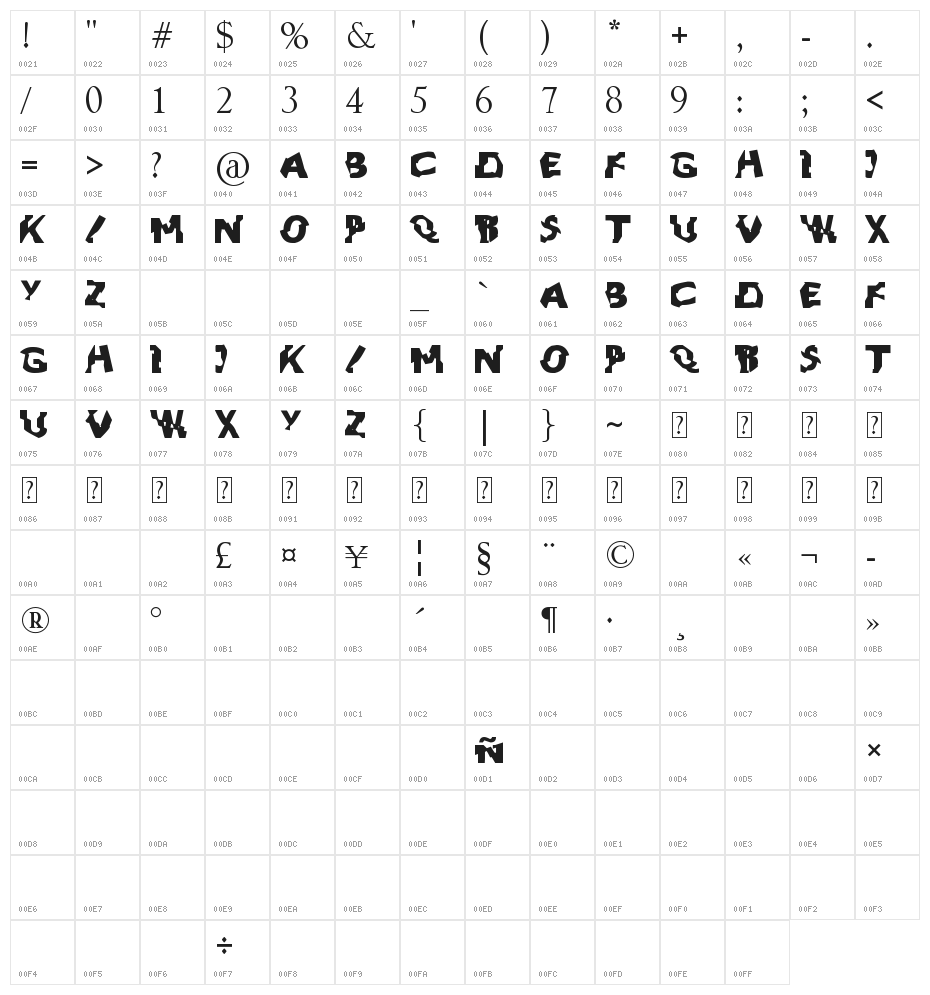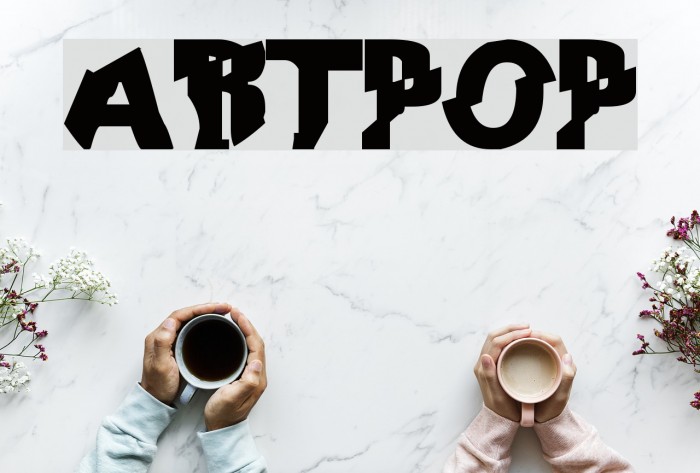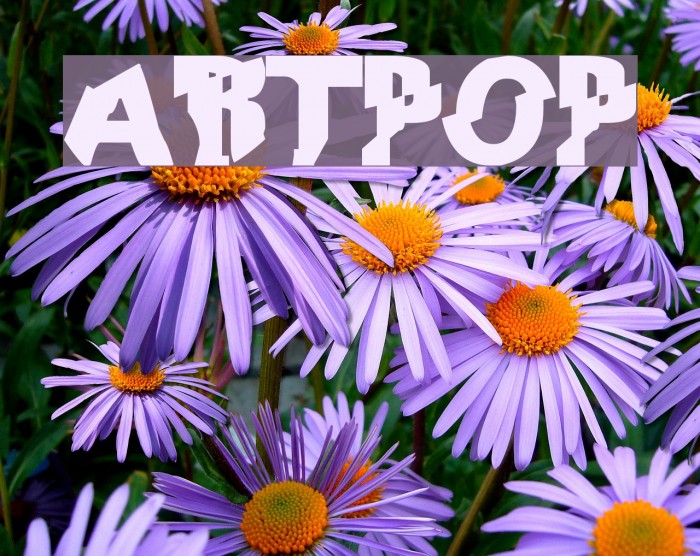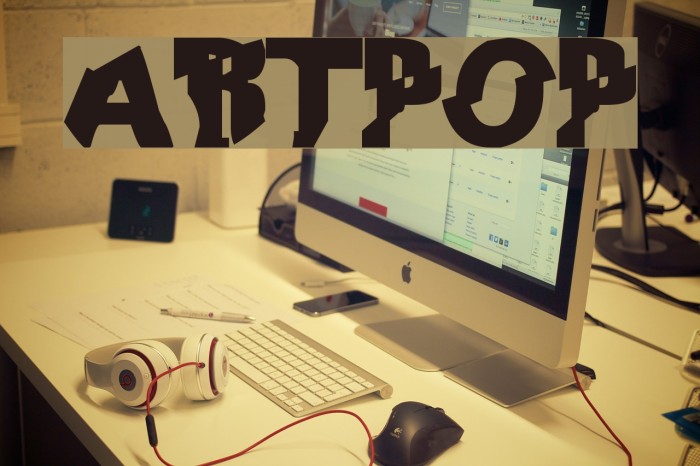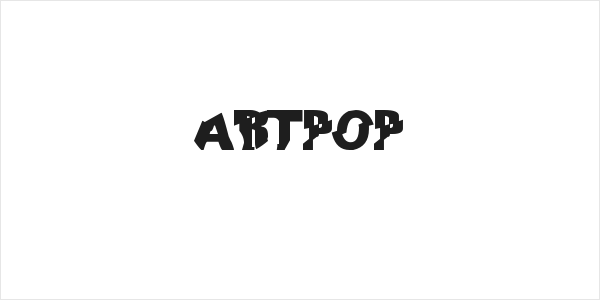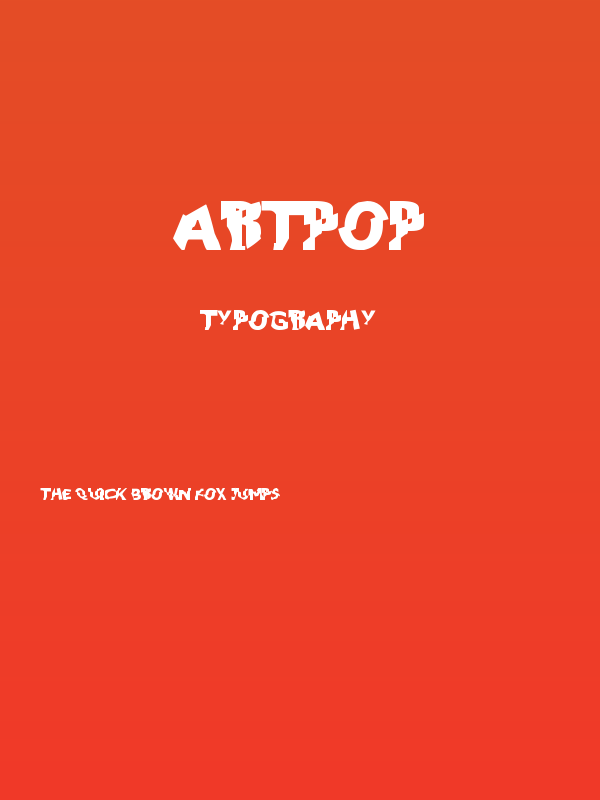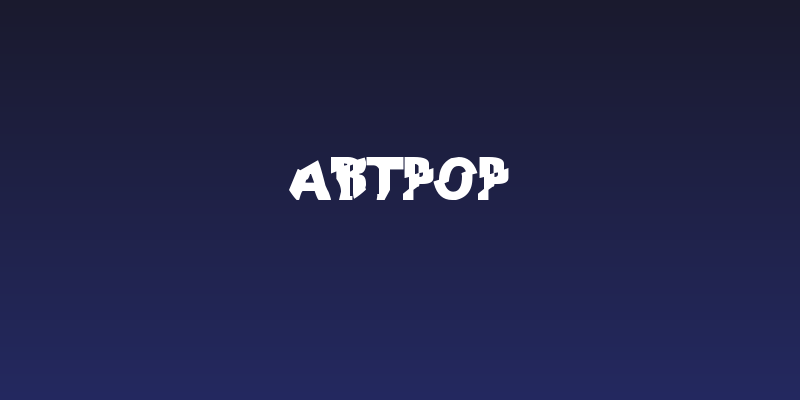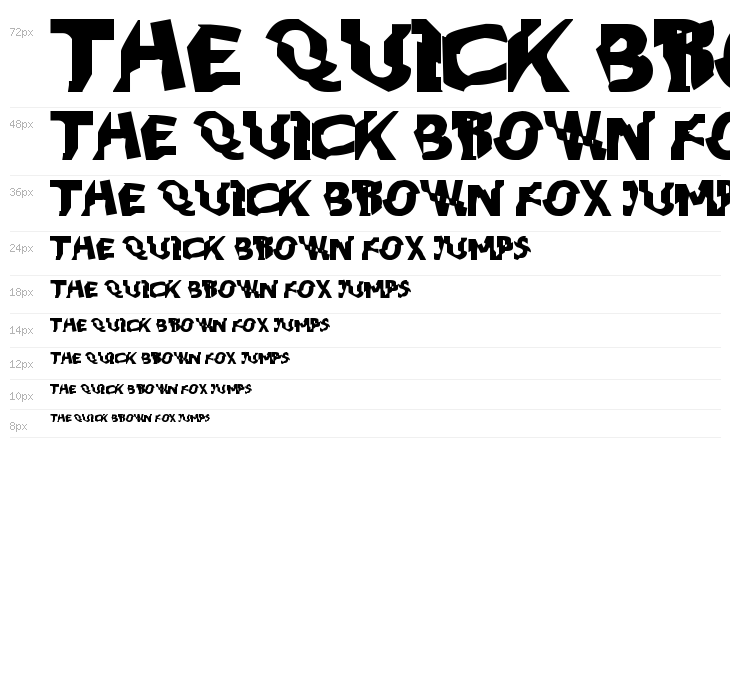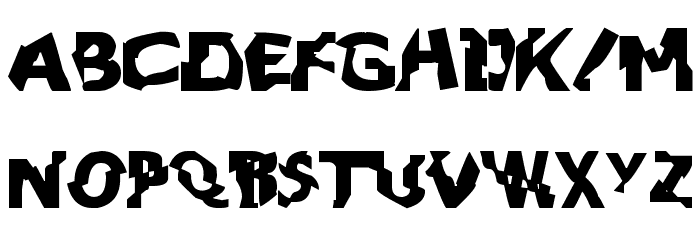
ARTPOP Font
ARTPOP Description
This font features a bold and dynamic style with a distinctly modern and artistic flair. The uppercase letters are characterized by sharp angles and irregular shapes, creating a sense of movement and energy. The lowercase letters maintain this dynamic quality, offering a cohesive look across the alphabet. The numerals are sleek and slightly elongated, complementing the overall aesthetic. Special characters are designed with the same boldness, ensuring consistency throughout. This font is ideal for projects that require a strong visual impact and a contemporary feel.